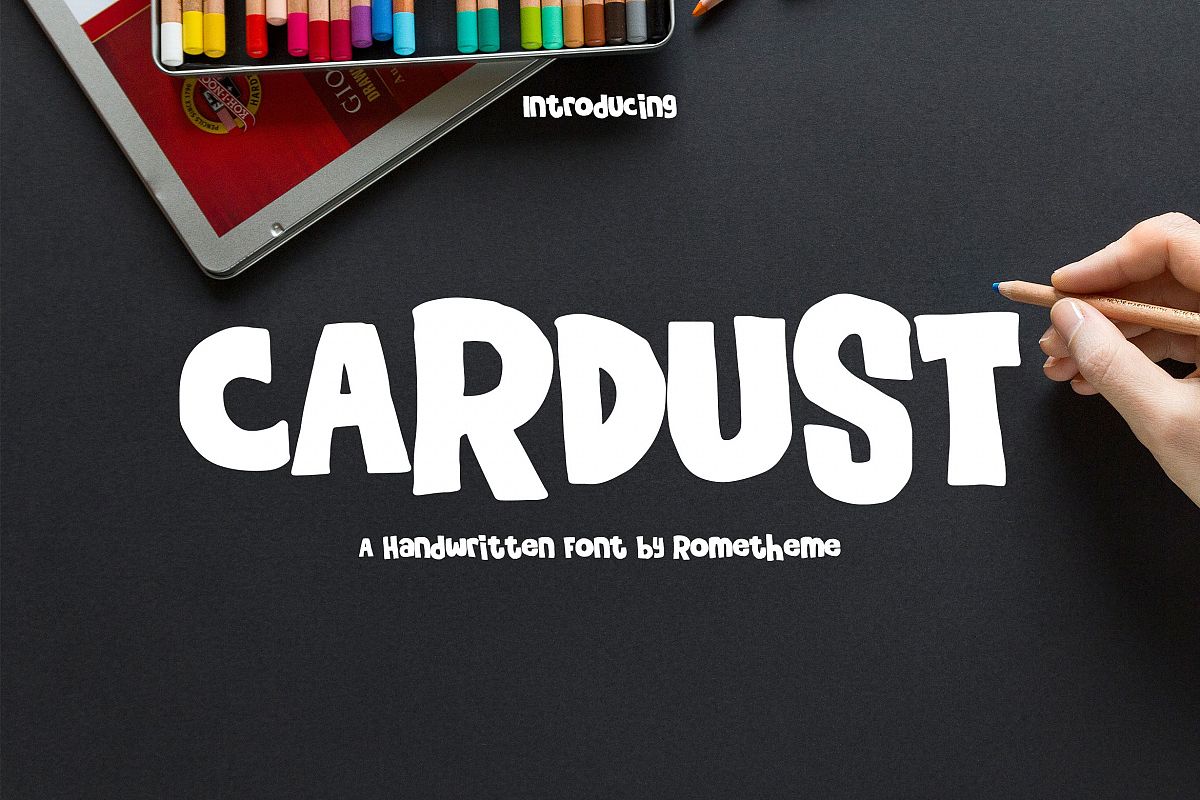
Cardust - Fun Font
Helo, friends,We are happy to introduce our new font "Cardust". Cardust is a bold display font, this font looks funny, cute, kids, cartoon, playful, catchy and easy to use.Cardust Font is the best choice for your professional design projects, including : logo, poster design, t-shirt, headline, flyer, cd cover album, quotes, business card, branding, magazines, social media, advertisements, product designs, or something that need playful or cartoon looks.